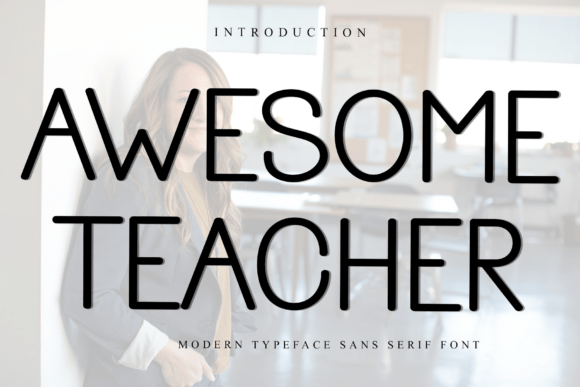
The Power of Fonts: Unleashing Creativity with Awesome Teacher Font
Have you ever been stuck on a design project, struggling to find the perfect font to bring your vision to life? I know I have. That’s why I’m excited to share with you the Awesome Teacher Font – a game-changing tool that’s about to revolutionize your creative workflow. This beautiful font is designed with a soft, unique touch that sets it apart from the rest, making it perfect for design projects, crafts, and other creative works.
What I love about Awesome Teacher Font is its versatility and compatibility with various applications, including Windows and open-source platforms. This means you can use it across different artistic and creative fields, from graphic design to digital art, and make your designs stand out in a crowded market.
With Awesome Teacher Font, you’ll be able to add a special touch to your designs, making them appealing to a wide range of audiences. Whether you’re a seasoned designer or just starting out, this font is sure to become a valuable addition to your toolkit.
Awesome Teacher Font Key Features
- Font Family: Awesome Teacher Font is a unique, hand-drawn font designed specifically for educators and educational institutions.
- Character Set: Includes a wide range of characters, including uppercase and lowercase letters, numbers, punctuation marks, and special characters.
- Unique Characteristics: Features a playful, hand-drawn style with bold lines and rounded edges, giving it a friendly and approachable feel.
Awesome Teacher Font Review
I recently had the chance to try out the Awesome Teacher Font, and I must say, it’s a unique and attention-grabbing choice for any educational project. Here’s my honest review:
- The font is playful and fun, making it perfect for a classroom or educational setting.
- The bold weight is great for headings and titles, adding a touch of personality to your design.
- The font is highly legible, even at smaller sizes, which is essential for reading and comprehension.
- The font may be too casual for more formal or professional educational settings, such as academic journals or textbooks.
- The font family is relatively small, which means there may not be as many style options available.
- The font may not be suitable for complex or technical content, as it can be overwhelming with too much information.
Overall, I think the Awesome Teacher Font is a great choice for educational projects that need a fun and engaging look. While it may have some limitations, it’s perfect for classroom materials, lesson plans, or other projects that require a playful touch. Just be mindful of the font’s casual nature and use it accordingly.
Tips for Getting the Most Out of Awesome Teacher Font
Use the Awesome Teacher Font in bold or italic styles to add emphasis to your text. Experiment with different font sizes and colors to create visual interest. Use the font in combination with other design elements to create a cohesive and professional look.
The Awesome Teacher Font is perfect for creating educational materials, such as lesson plans, worksheets, and presentations. It’s also great for creating flyers, posters, and other promotional materials for schools and educational institutions.